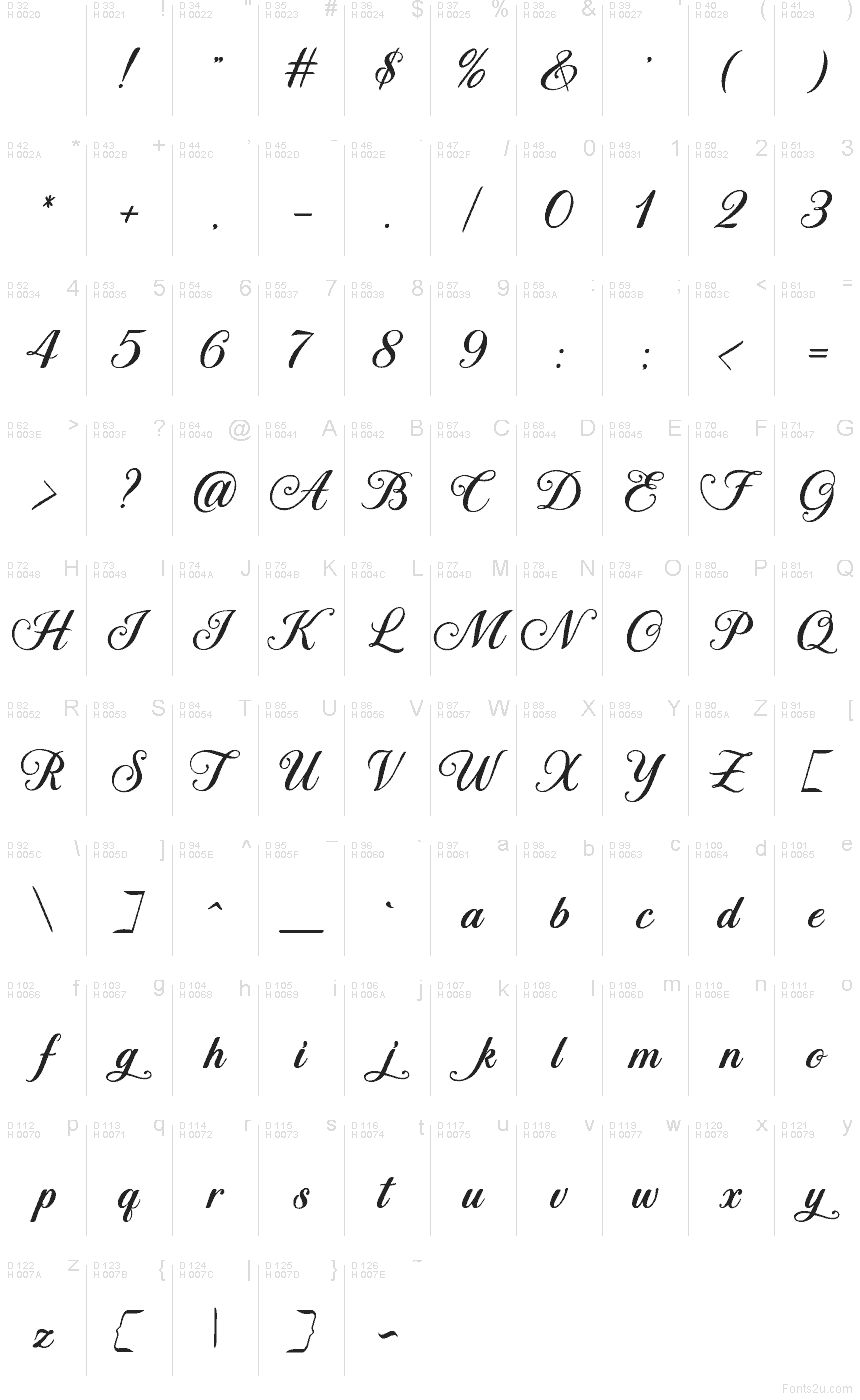
Floraison des Amours
Floraison des Amours font by Cat.B is a free calligraphy typeface that feels like it’s been brushed straight from an inkwell onto creamy paper. Its flowing loops, delicate swashes, and tightly knit rhythm give every word a soft, romantic pull, as if it belongs on vintage love letters or hand-tied bouquets. The strokes are smooth and confident, with just enough flourish to feel luxurious without becoming fussy.
Using Floraison des Amours, you can bring an intimate, handwritten charm to wedding invitations, save-the-dates, letterpress cards, event signage, perfume or beauty branding, and elegant social media graphics. This free font shines when used large, letting the curls and tails really breathe. For a balanced layout, pair it with a simple sans serif for body text so the calligraphy can stay in the spotlight.